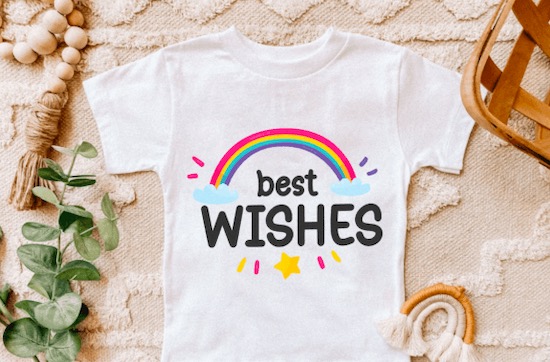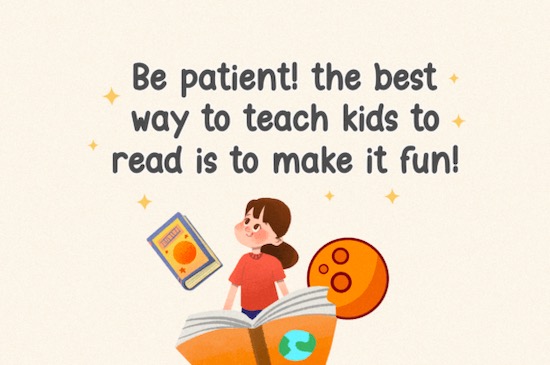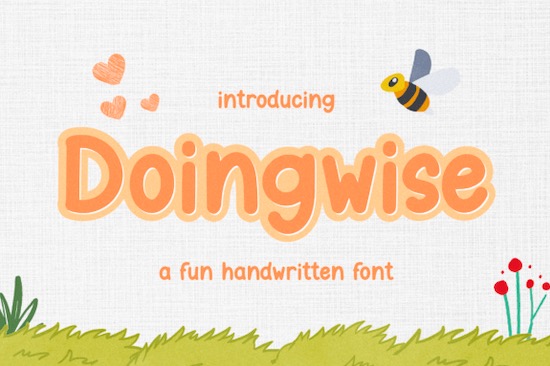
Doingwise is a great lovely and cute handwritten display font that was published by Qwrtype Foundry along with OTF & TTF, Doingwise also has multilingual support. Doingwise is perfect for product packaging, branding project, magazines, social media, weddings, or just used to express words above the background.
Doingwise Display Script Font